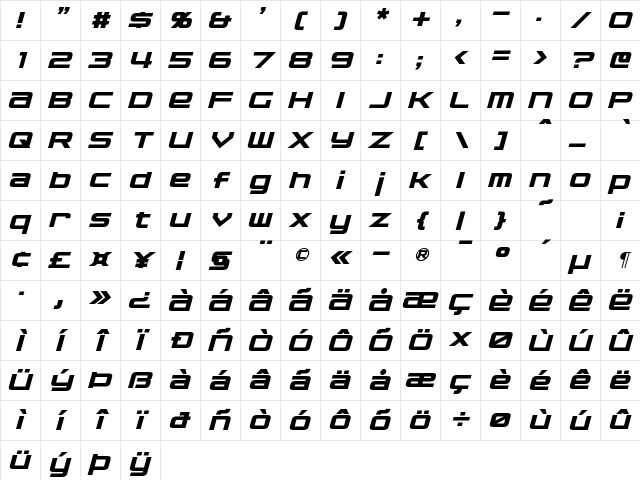
Nakadai is a composed and adaptable typeface that performs quietly and consistently across a wide range of design contexts. The slanted form adds forward momentum and visual energy.